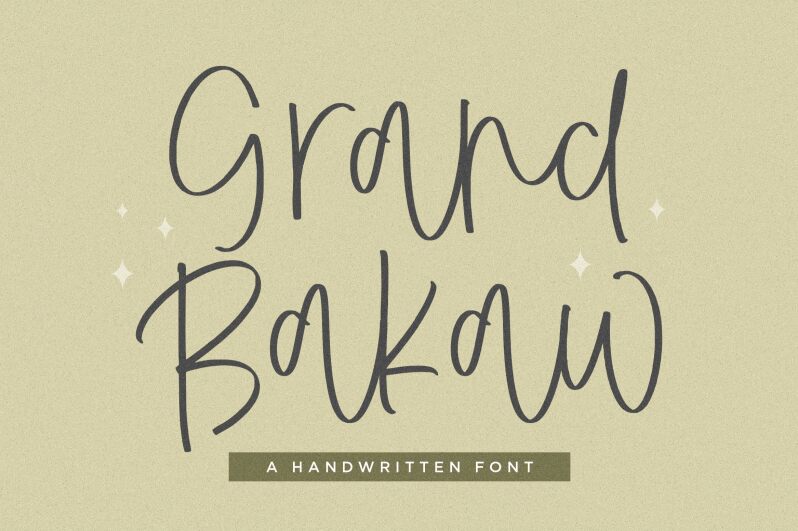
Grand Bakaw
Grand Bakaw font by Balpirick Studio is a playful and elegant handwritten font with a casual spirit. It flows beautifully thanks to the font’s light weight and organic shapes which give it a lively vibe. Ideal for artistic projects, Grand Bakaw offers an original finish that can be the missing piece in your designs.